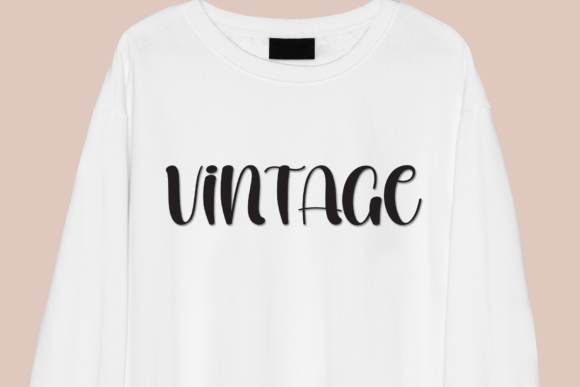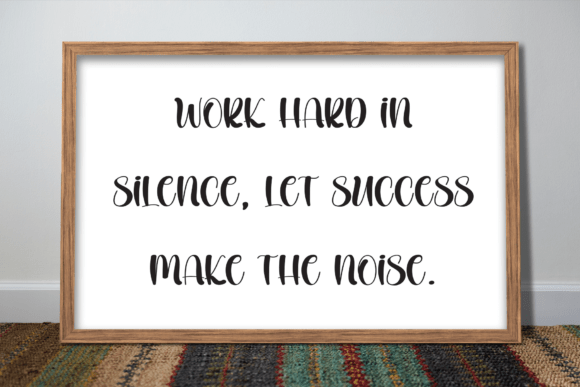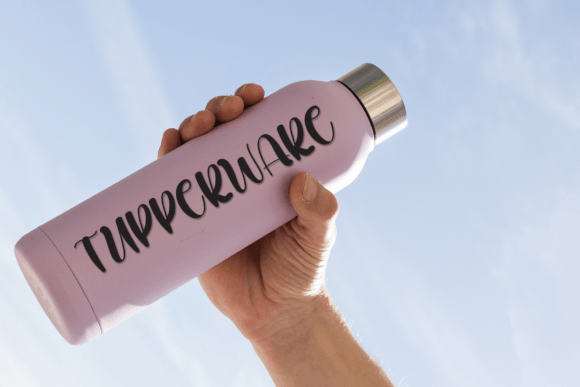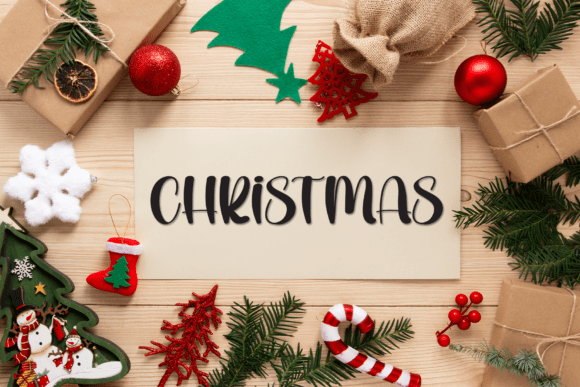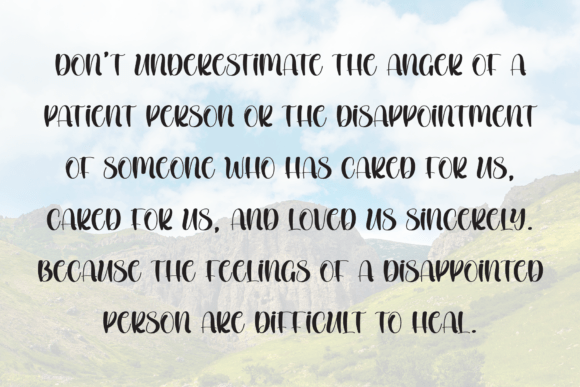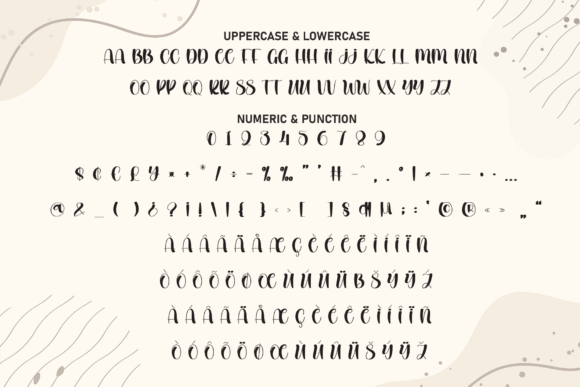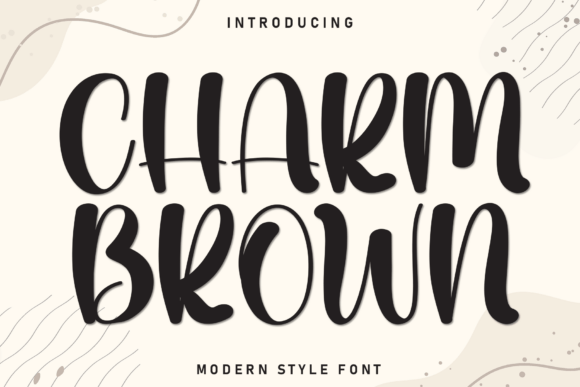
Introducing Charm Brown Font: The Perfect Blend of Simplicity and Warmth
In the world of typography, fonts play a crucial role in conveying the tone and personality of a brand or design. For designers and crafters looking for a font that combines simplicity with a friendly, approachable vibe, Charm Brown Font is an excellent choice. This casual and neat display font is designed to capture the essence of modern handwritten typography with a polished finish, making it ideal for a wide range of applications.
What Makes Charm Brown Font Stand Out?
Charm Brown Font boasts clean lines, balanced letterforms, and subtle rounded edges that give it a unique and charming character. The font’s design is carefully crafted to deliver clarity and charm in equal measure, making it perfect for use in branding, headlines, packaging, and digital content. Whether you’re looking to add a warm and inviting touch to your design or create a lasting impression, Charm Brown Font is an excellent choice.
Key Features of Charm Brown Font
- Clean Lines and Balanced Letterforms: The font features clean lines and balanced letterforms that give it a crisp and modern look.
- Subtle Rounded Edges: The subtle rounded edges add a touch of warmth and friendliness to the font, making it approachable and inviting.
- Versatile Style: Charm Brown Font is designed to be versatile, making it suitable for use in a wide range of applications, from branding and headlines to packaging and digital content.
- Polished Finish: The font’s polished finish gives it a professional and refined look that’s perfect for designs that require a high level of sophistication.
Why Choose Charm Brown Font?
There are many reasons why designers and crafters should consider using Charm Brown Font in their designs. Here are a few:
- Warm and Inviting: The font’s warm and inviting tone makes it perfect for designs that require a friendly and approachable vibe.
- Highly Legible: The font’s clean lines and balanced letterforms make it highly legible, even at small sizes.
- Versatile: Charm Brown Font is versatile and can be used in a wide range of applications, from print to digital.
- Easy to Pair: The font is easy to pair with other fonts, making it perfect for designs that require a combination of fonts.
Use Cases for Charm Brown Font
Charm Brown Font is suitable for use in a wide range of applications, including:
- Branding: The font is perfect for creating a strong brand identity that’s friendly and approachable.
- Headlines: The font’s bold and clean lines make it perfect for use in headlines and titles.
- Packaging: The font’s warm and inviting tone makes it perfect for use in packaging designs that require a friendly and approachable vibe.
- Digital Content: The font is highly legible and can be used in digital content, such as blog posts, social media, and website headers.
In conclusion, Charm Brown Font is an excellent choice for designers and crafters looking for a font that combines simplicity with a friendly, approachable vibe. With its clean lines, balanced letterforms, and subtle rounded edges, this casual and neat display font is perfect for use in branding, headlines, packaging, and digital content. Its warm and inviting tone, high legibility, and versatility make it an excellent addition to any design.
Get Ready to Add Charm to Your Designs